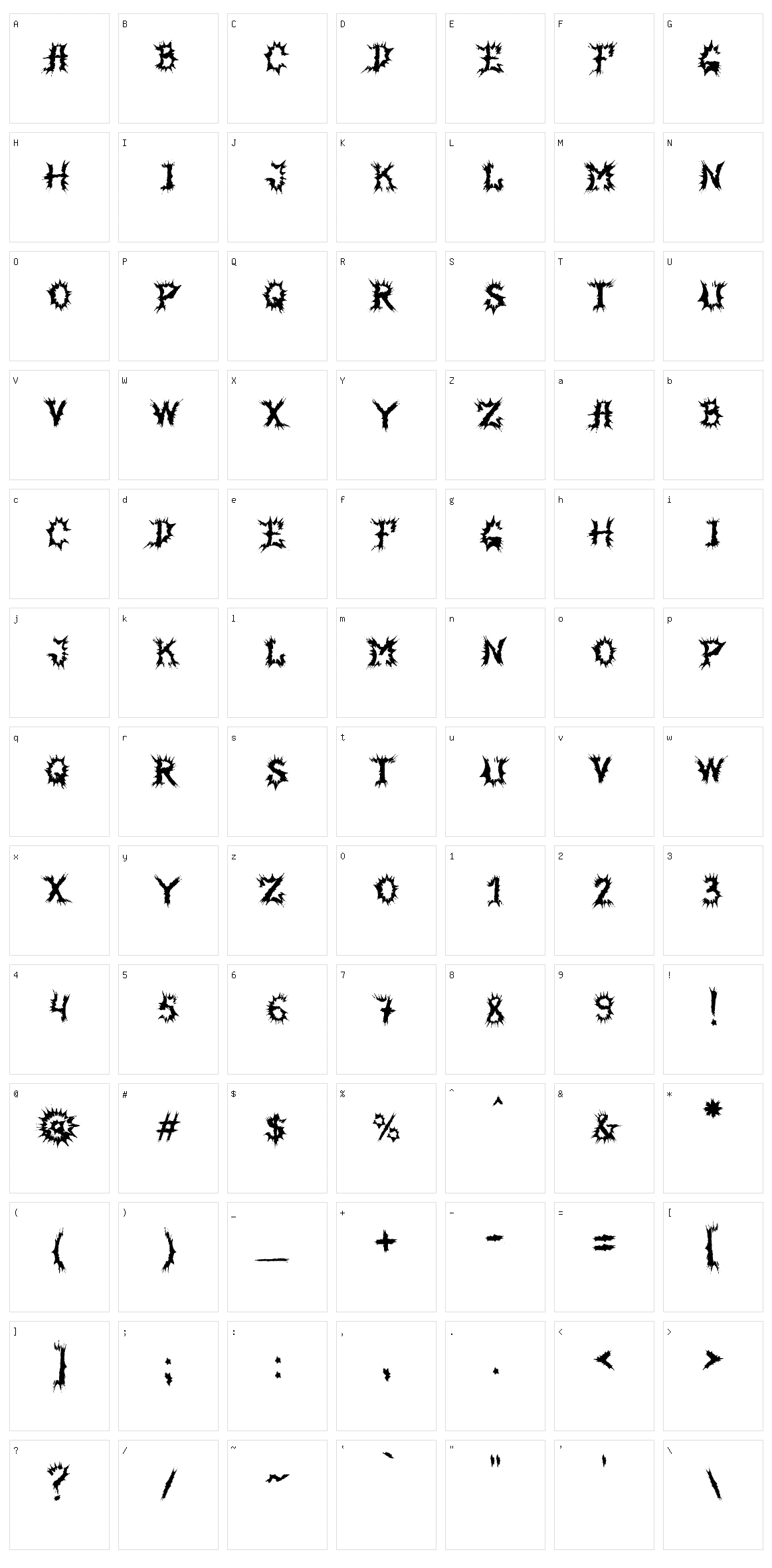
MB-HorrorHouse - Raw Horror Font by ModBlackmoon.
Incl. English, European and Cyrillic letters and Numbers. May be scaled to extra large size without quality loss.